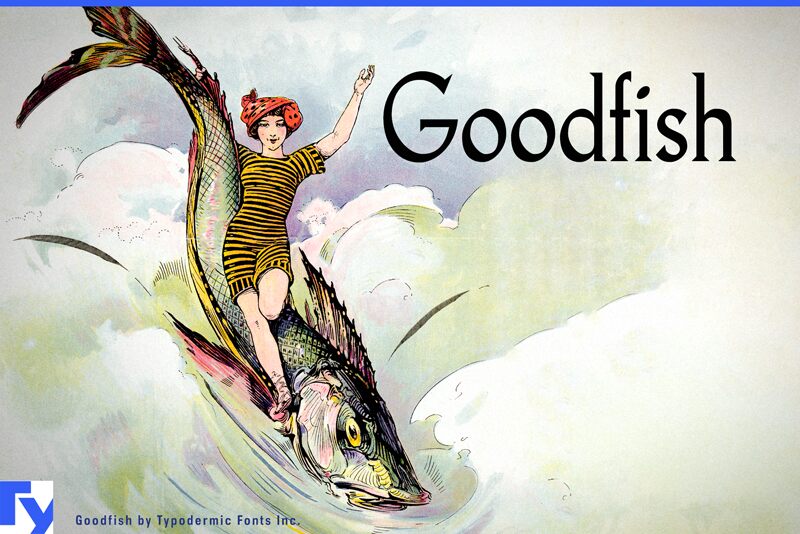
Goodfish Bold Italic by Ray Larabie of Typodermic Fonts Inc. is a free high-contrast serif font with a forceful forward slant. Knife-sharp serifs and swelling curves give the letters a taut, theatrical silhouette.
Designers working in fashion, nightlife, and independent music can use its dramatic proportions for event posters, album packaging, and editorial covers, especially when the brief calls for elegance with a slightly unruly edge. On modern boutique branding, the pointed details and sweeping diagonals can become a recognizable product identity, linking perfume labels or fashion campaigns to the sharp glamour and controlled excess of classic magazine display typography.
Goodfish is a Latin serif font created in 2000. Its spacing, kerning, vertical alignment, and vertical metrics have been improved for web performance. Additional punctuation has been added, and more languages are supported.